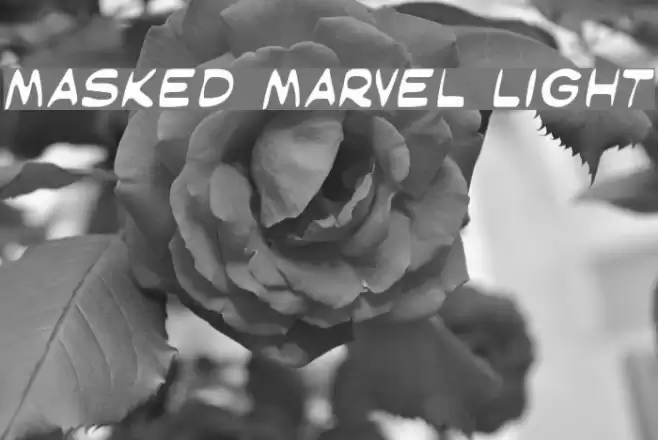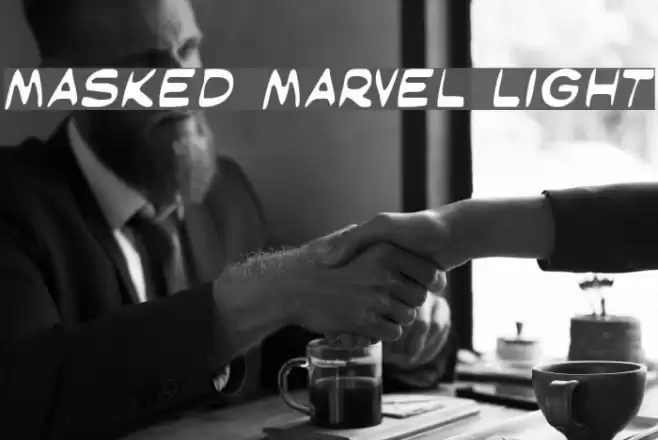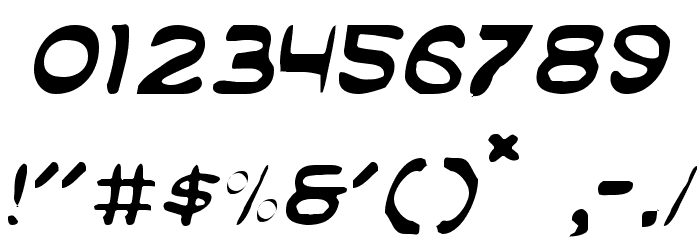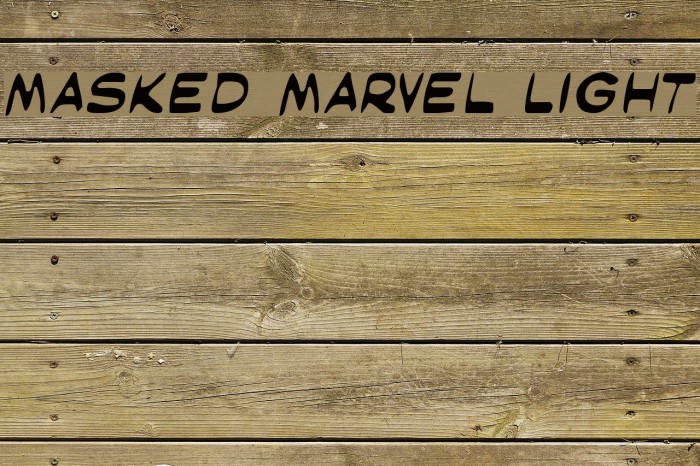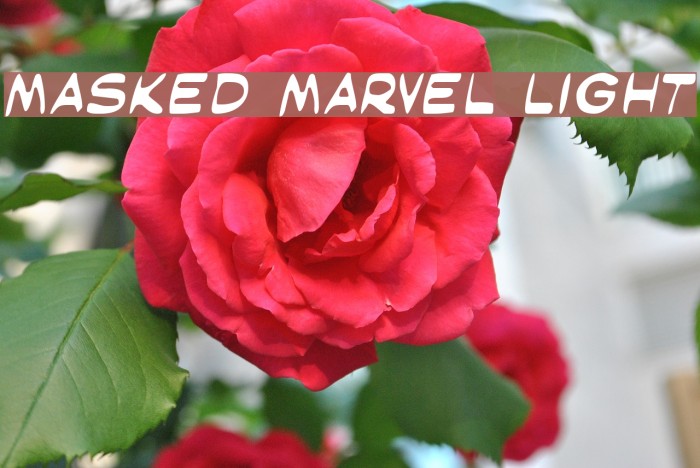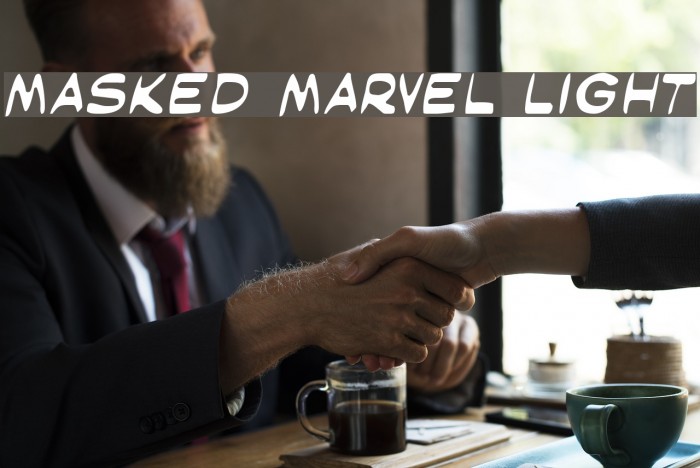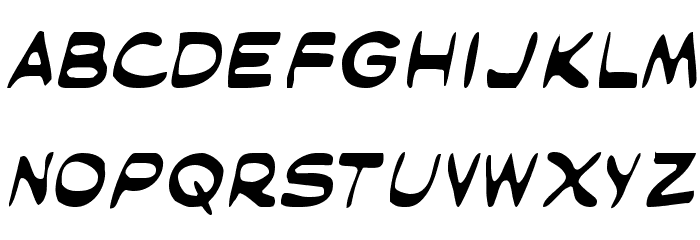
Masked Marvel Light Font
Masked Marvel Light Description
This font features a bold and dynamic style with a slightly slanted orientation, giving it a sense of movement and energy. The characters are thick and rounded, with a playful yet assertive appearance. The uppercase letters are consistent in height, while the lowercase letters maintain a similar weight, ensuring readability. The numbers are bold and clear, matching the overall style of the alphabet. Special characters are creatively designed, adding to the font's unique personality. This font is suitable for projects that require a strong visual impact.
A bold, dynamic font with rounded characters and a playful, assertive style from Comic fonts.
- Proposed Projects: Ideal for comic book titles, posters, branding, and any project needing a bold, energetic typeface.